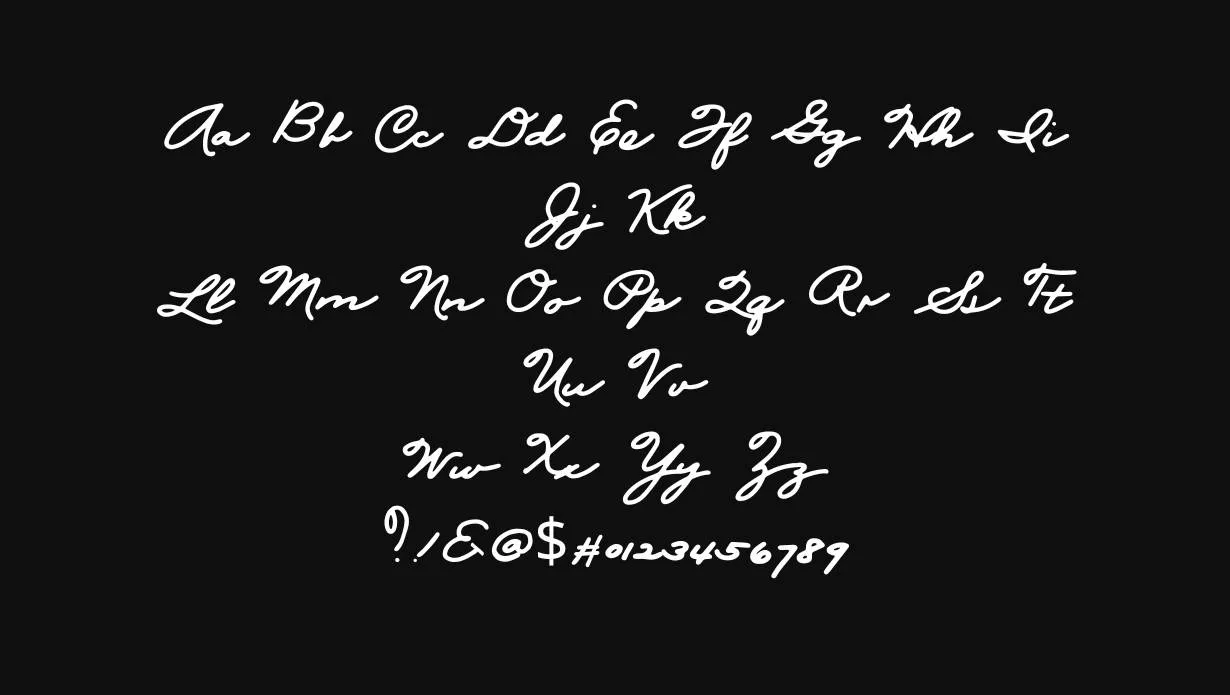
Palmer Script Font Mix provides a fun and creative script typeface with a whimsical design.
It’s frequently used in creative branding, children’s books, and projects where designers want to convey a sense of fun and creativity.
| Name | Mix Palmer Script Font |
| Designer | Mikko Sumulong |